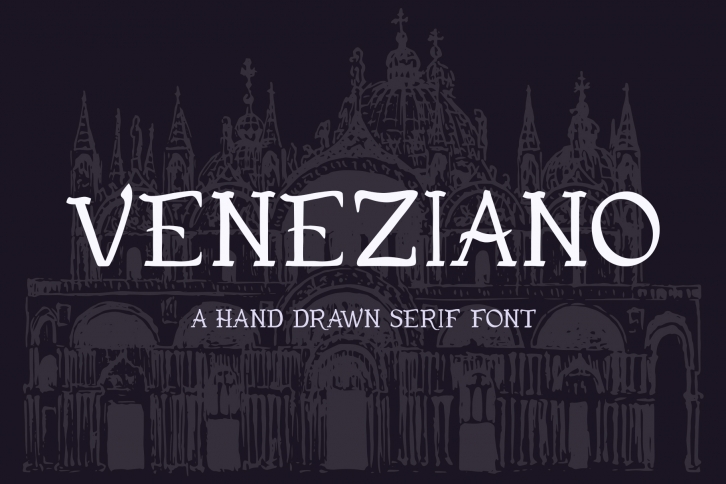
Veneziano is a beautiful font that was designed by Everilda. It's a great choice for designers and creatives who need such a font. It was released on February 13, 2018 and the file size is 9.84 MB. Veneziano may give a more youthful, expressive and casual look to your project. It is a very beautiful, refined, elegant, and high-quality font.